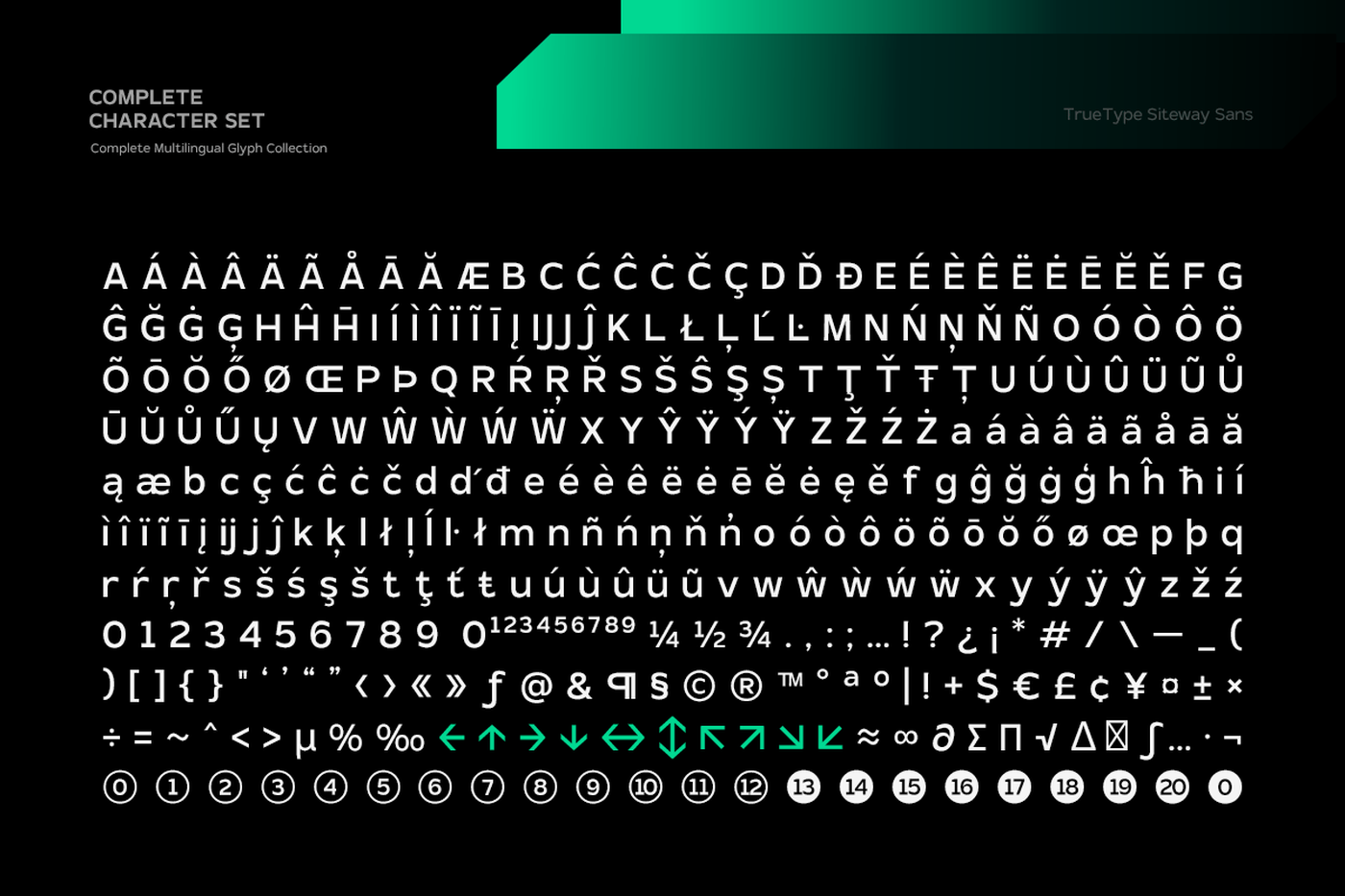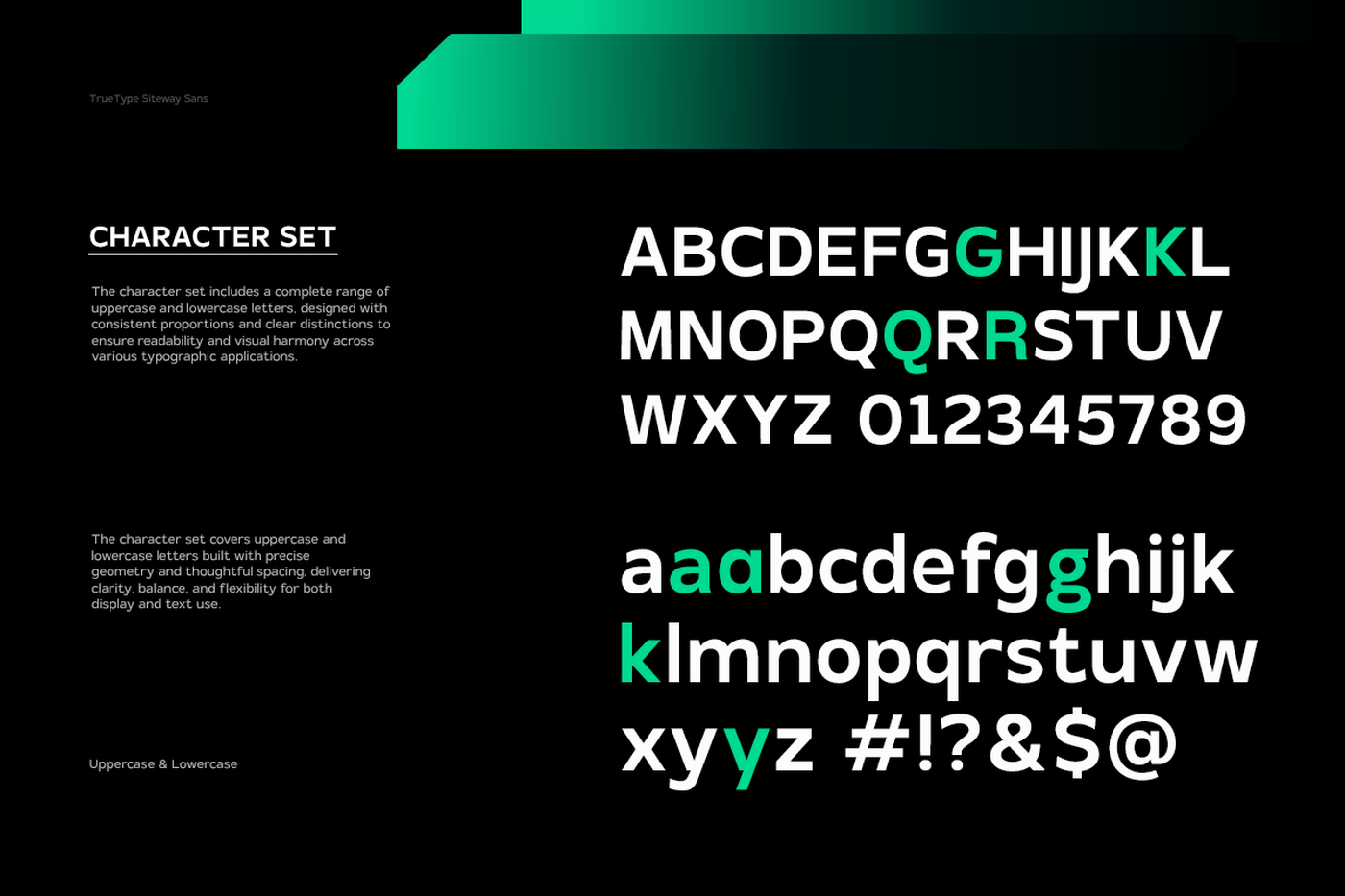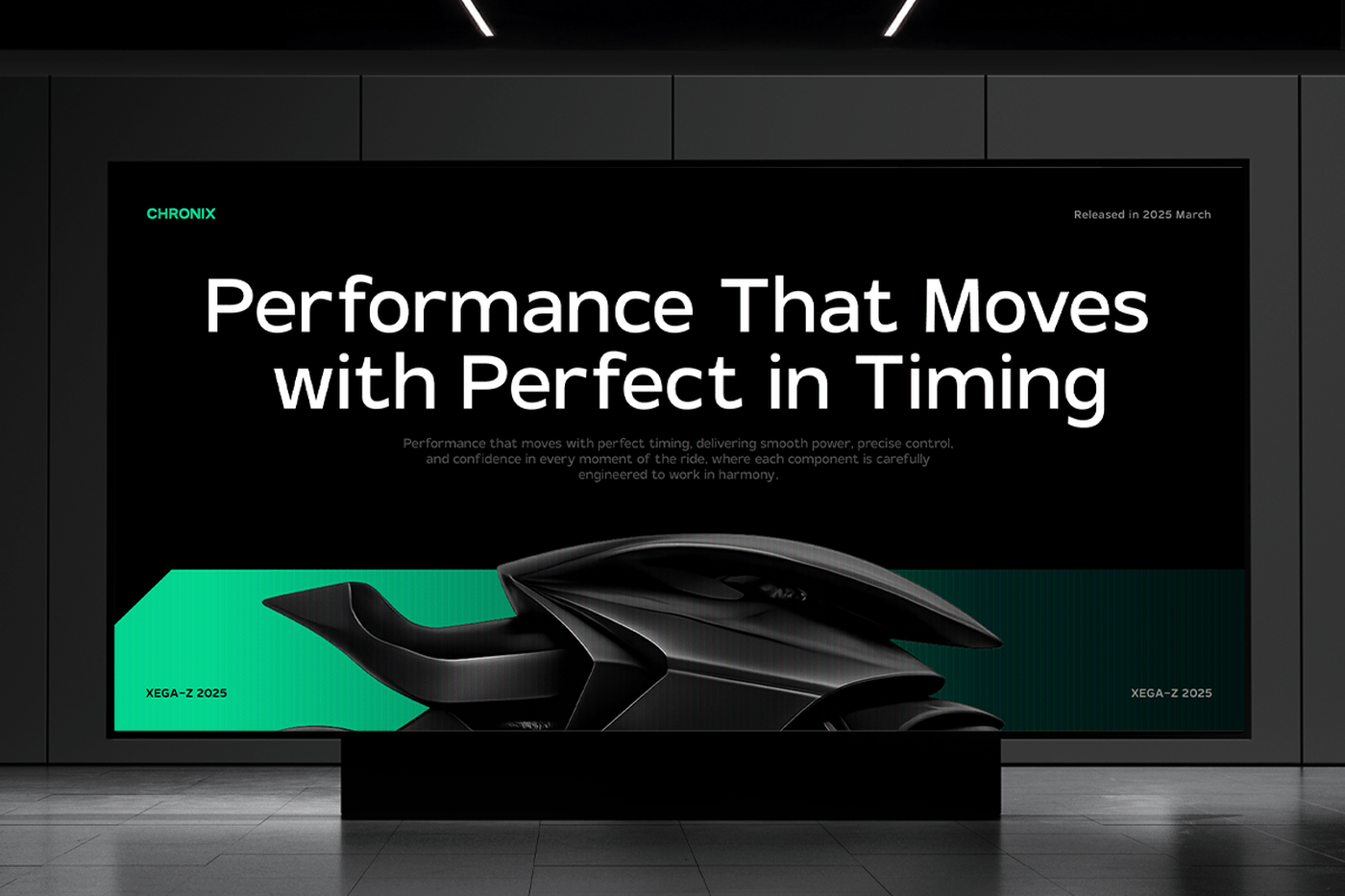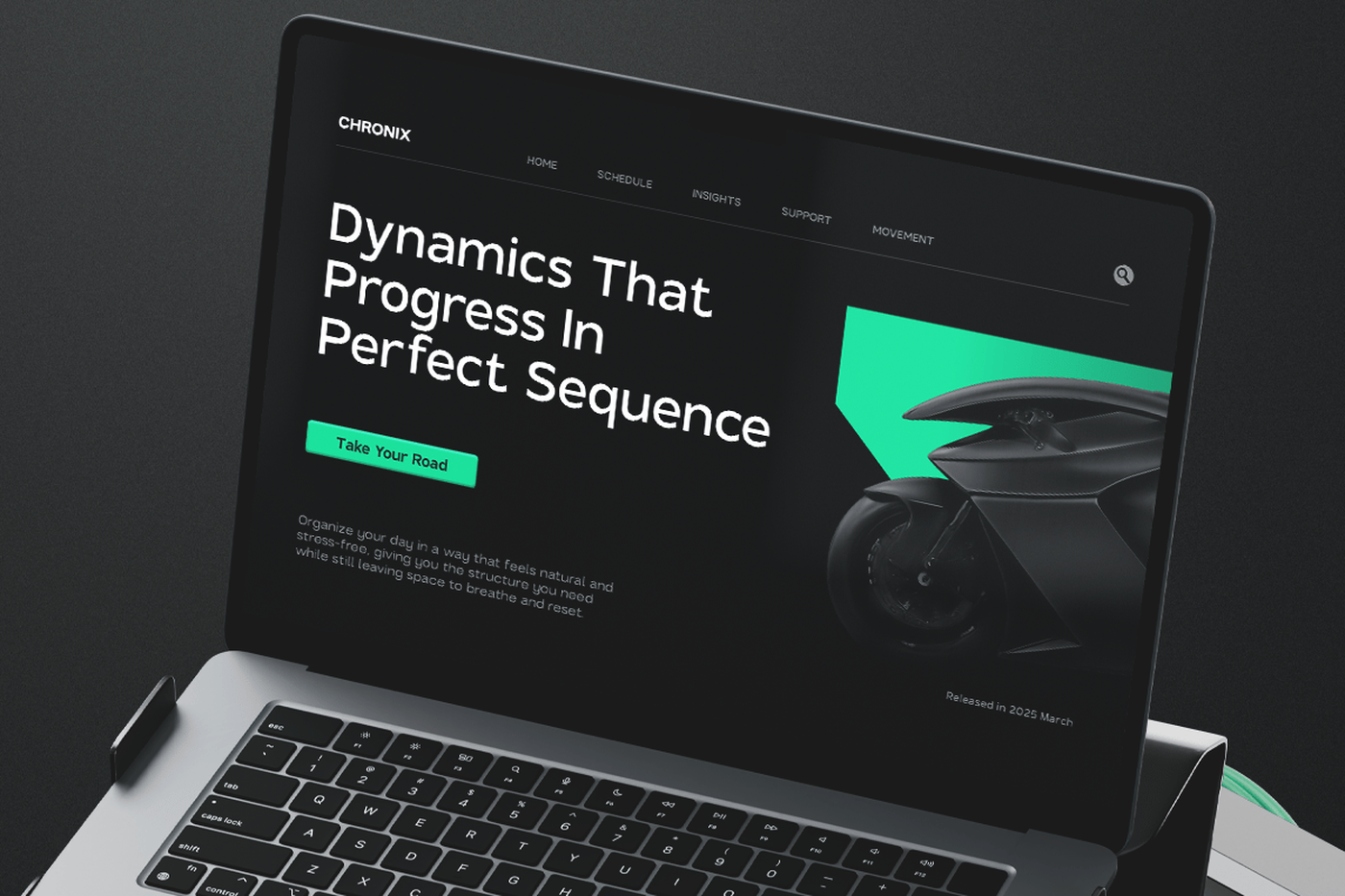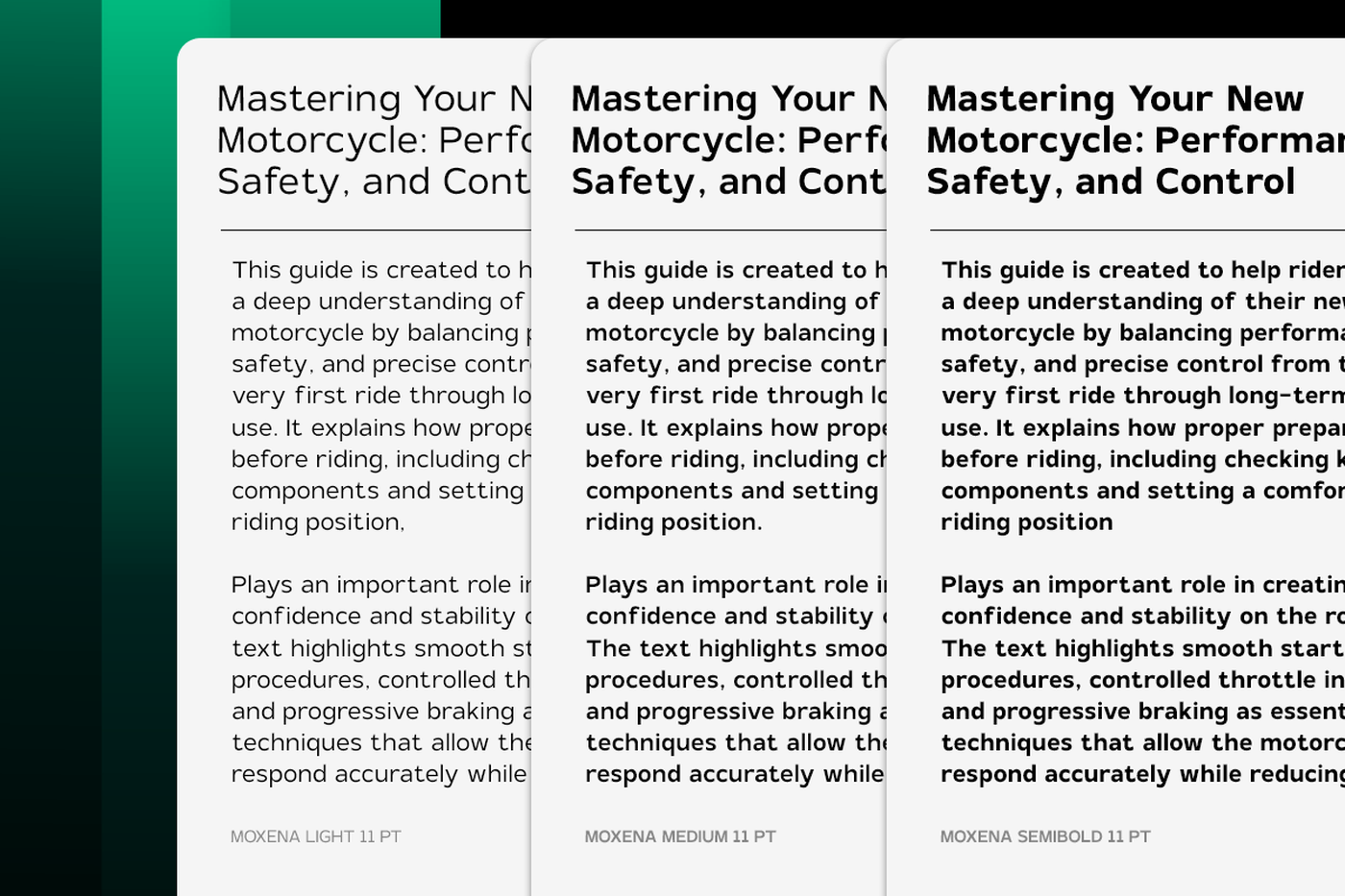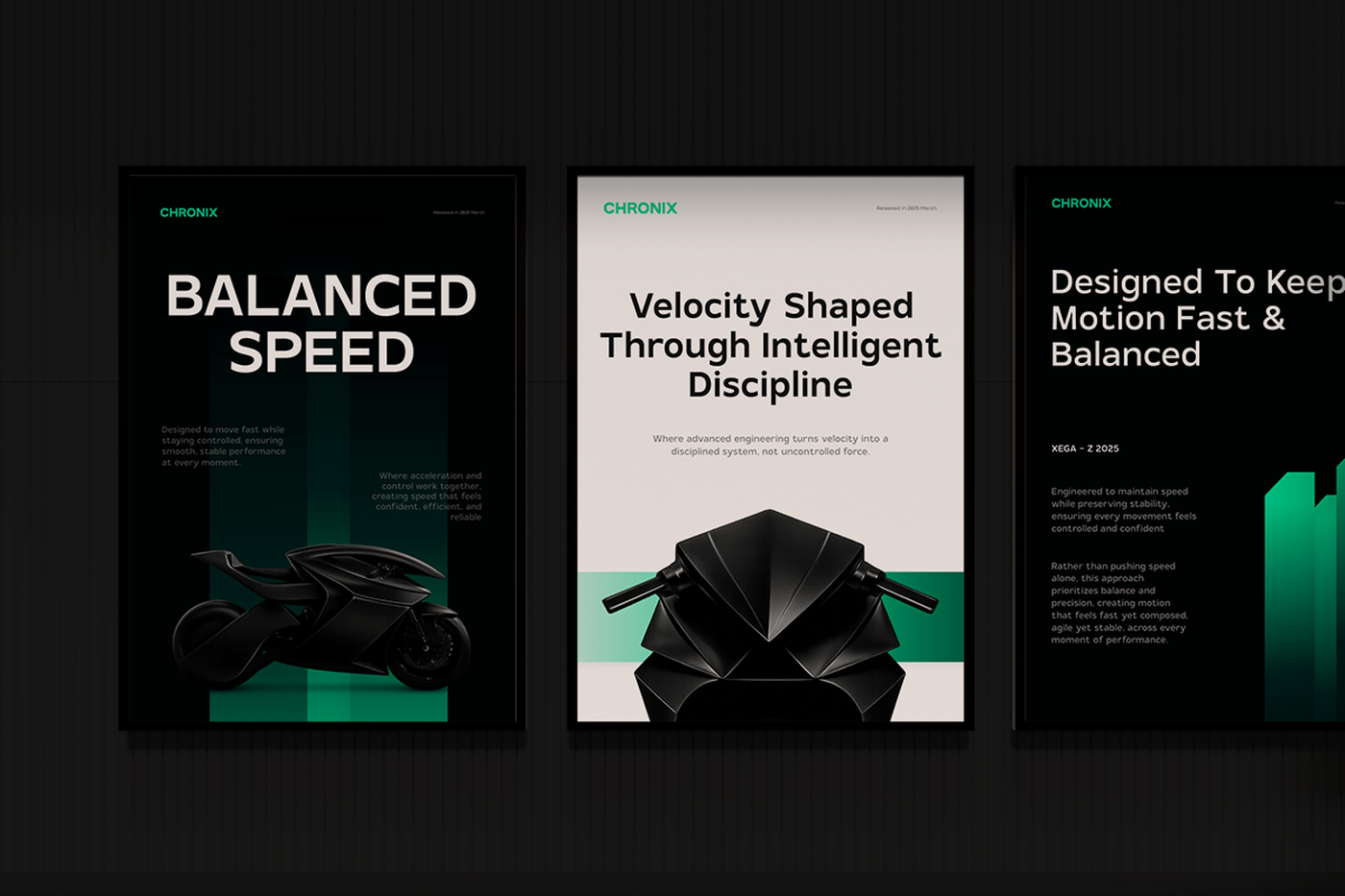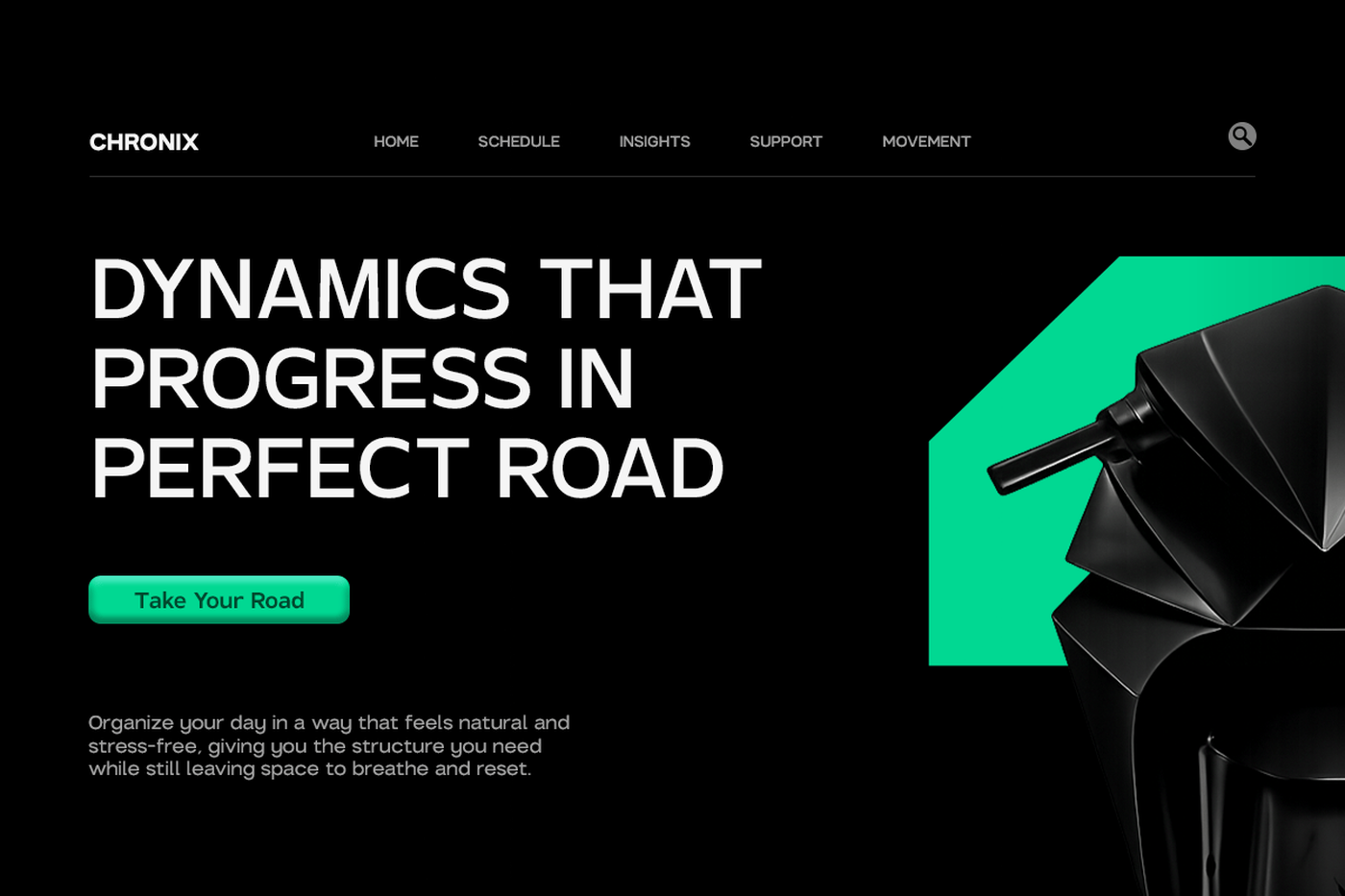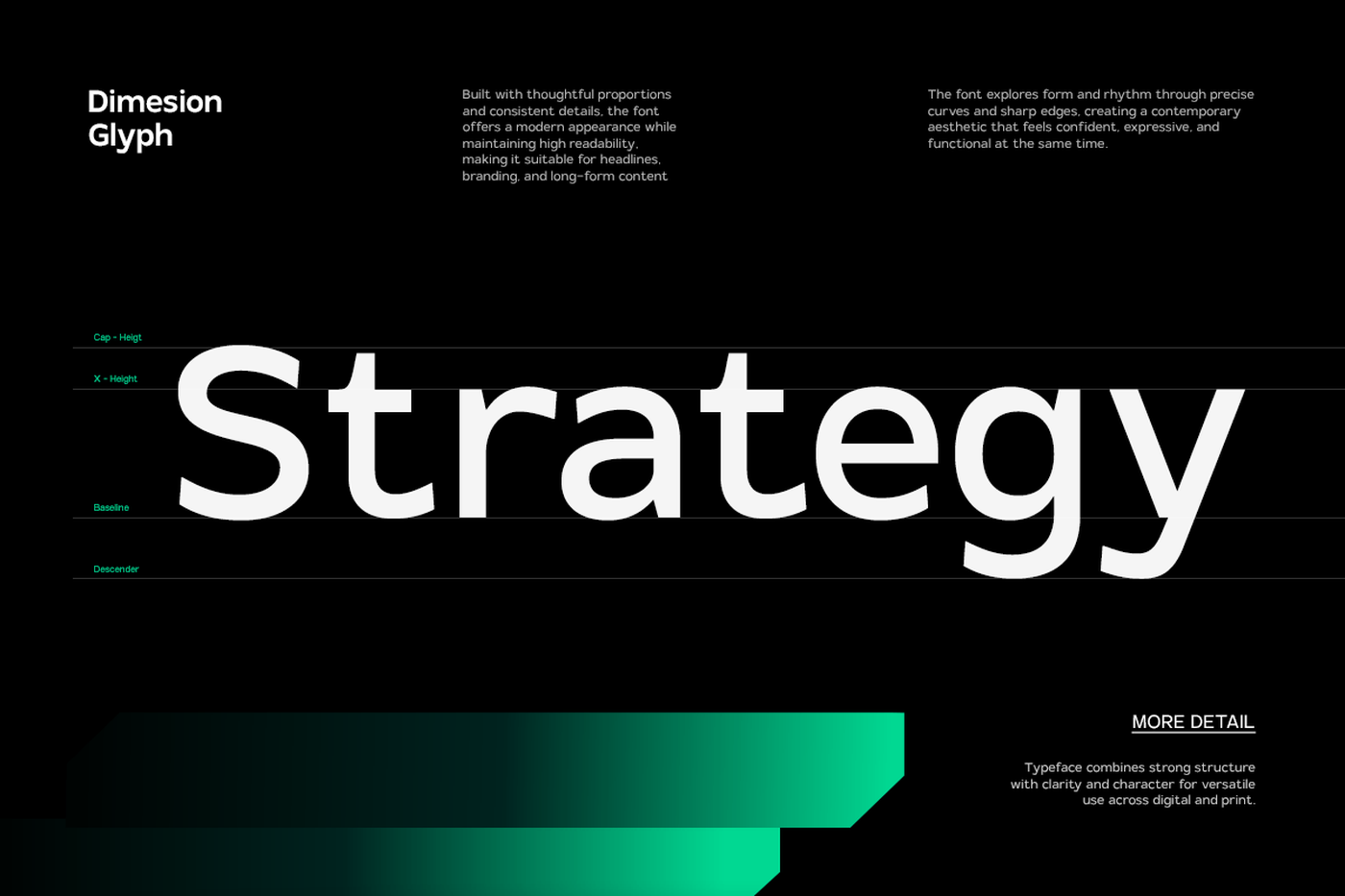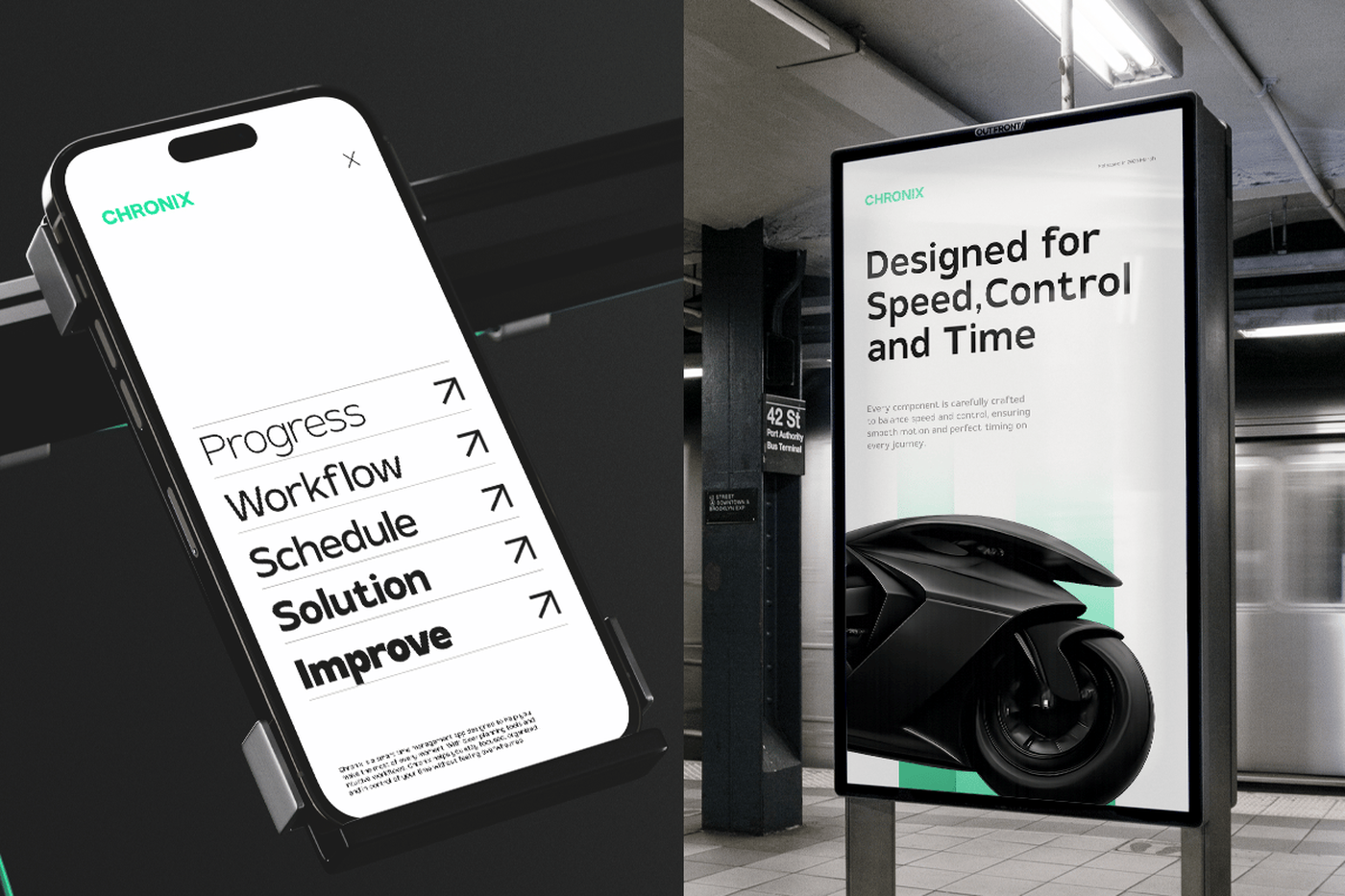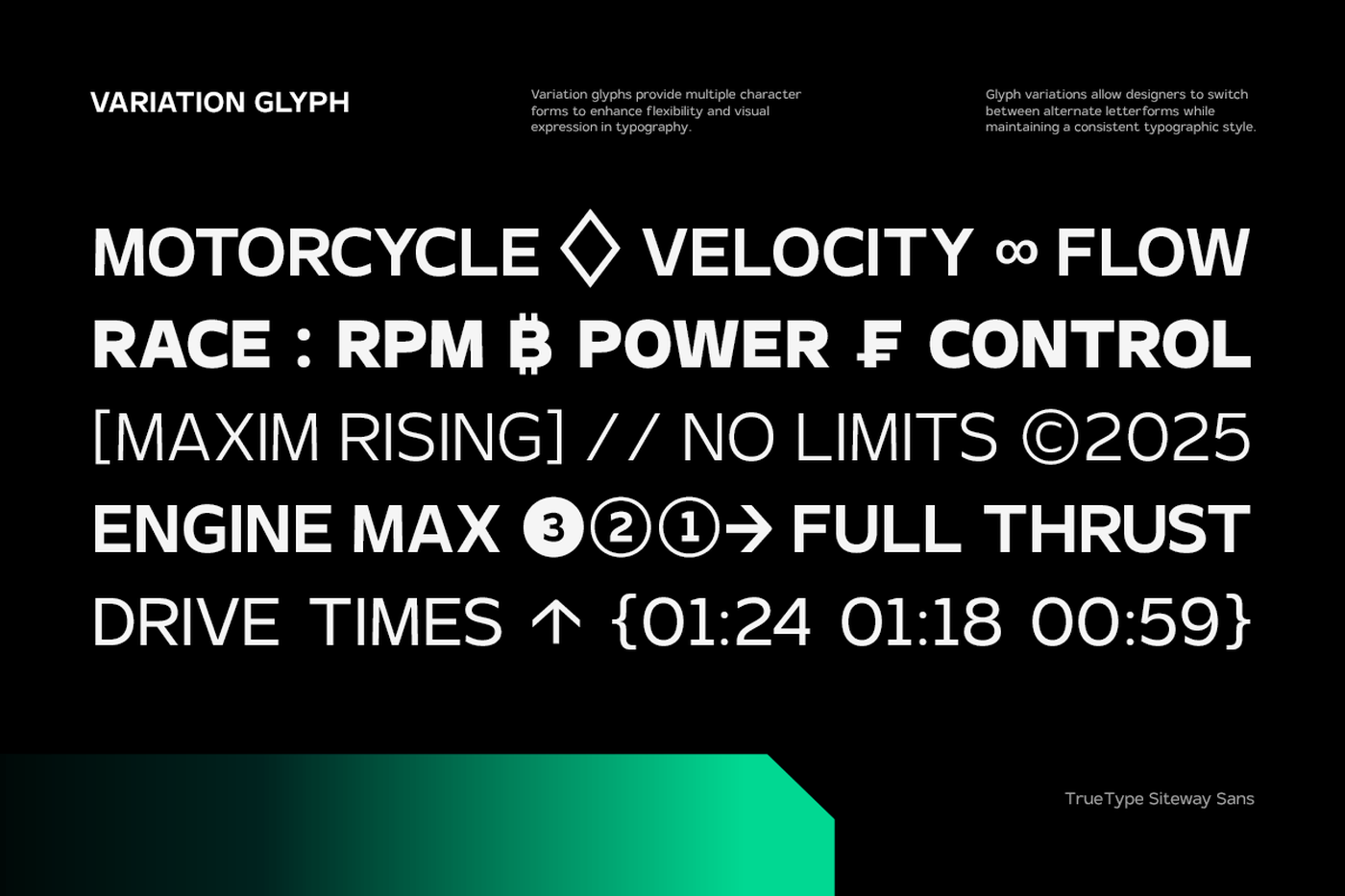
Monexa - Modern Sans Serif Font
TBJ Monexa is a modern humanist sans serif typeface inspired by the natural readability of Open Sans and refined for contemporary digital use. Designed with clarity, neutrality, and usability at its core, Monexa delivers a clean typographic voice that feels familiar, professional, and effortlessly readable across screens. The letterforms feature open apertures, balanced proportions, and carefully tuned spacing, resulting in a calm and consistent reading experience. This makes TBJ Monexa especially effective for UI design, web platforms, mobile applications, dashboards, editorial layouts, and long-form digital content where comfort and clarity are essential.
Font: Monexa